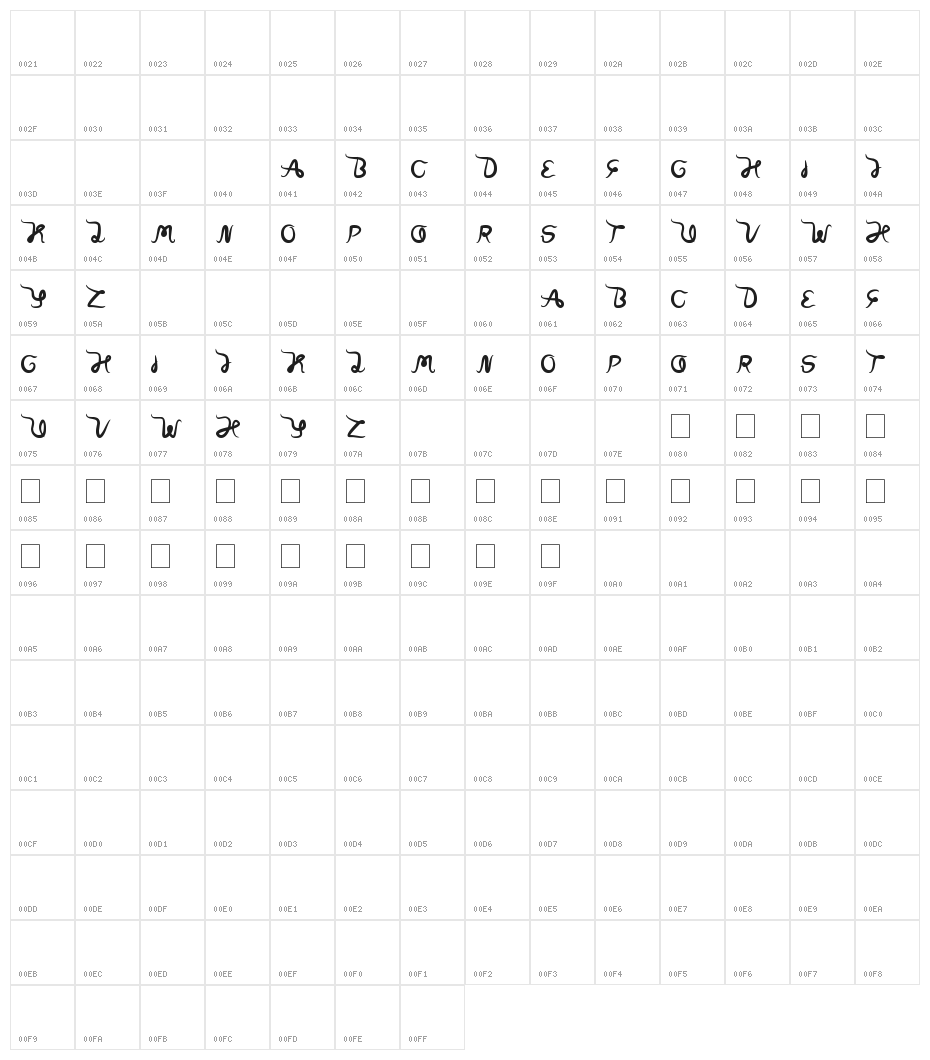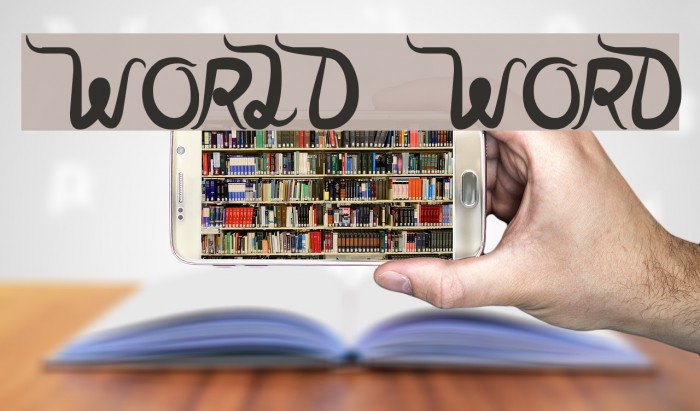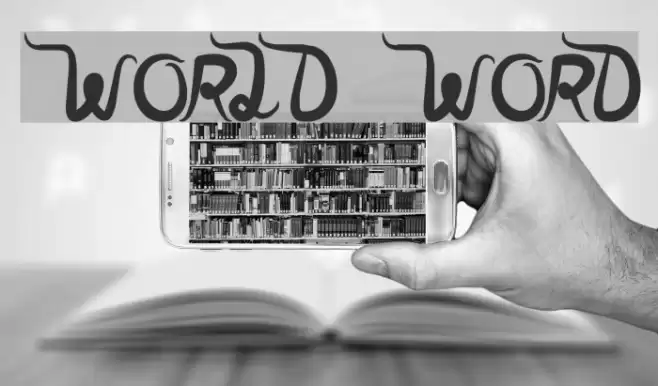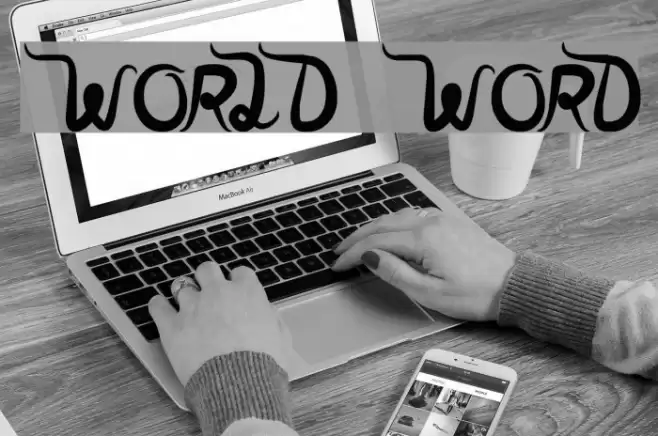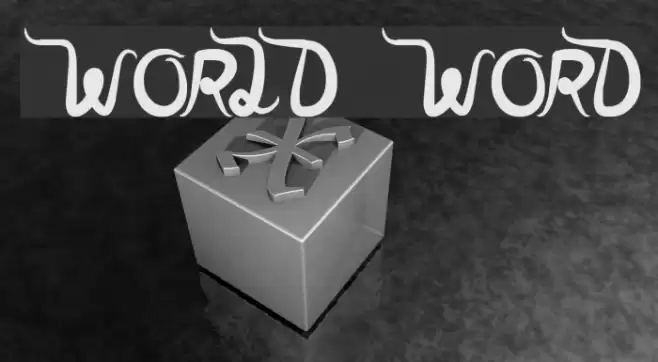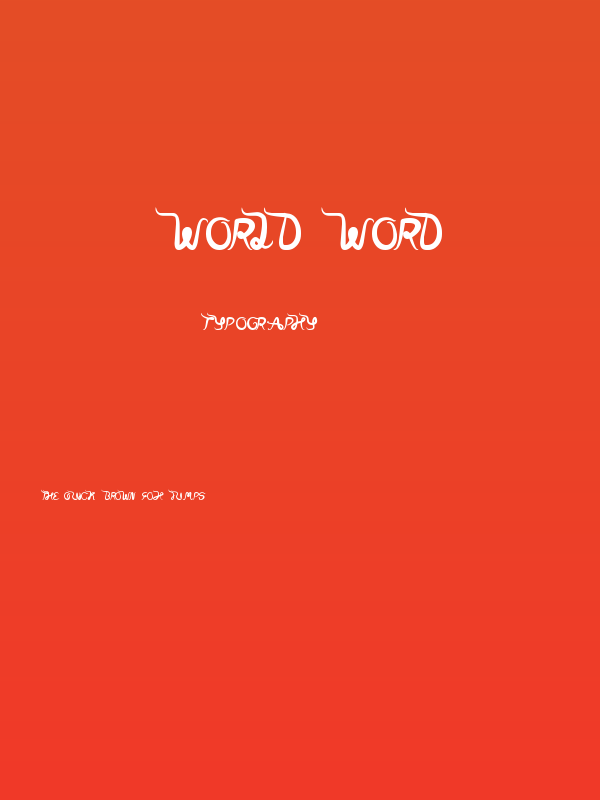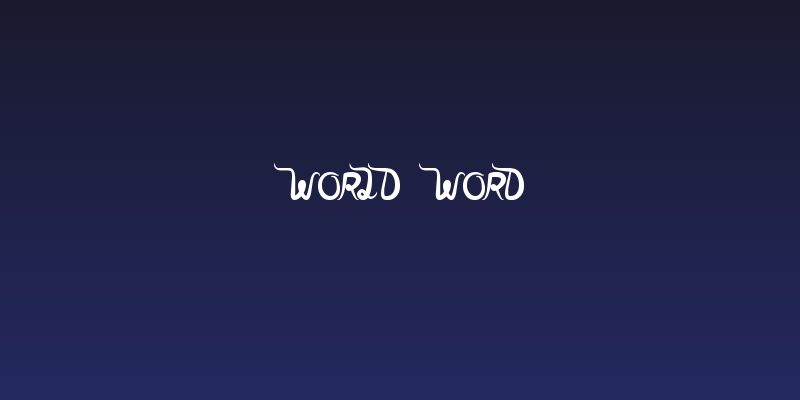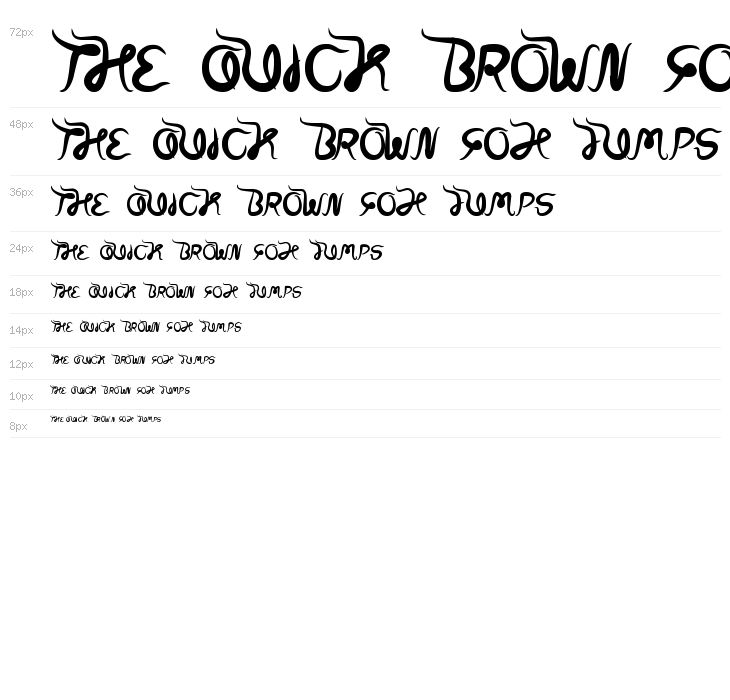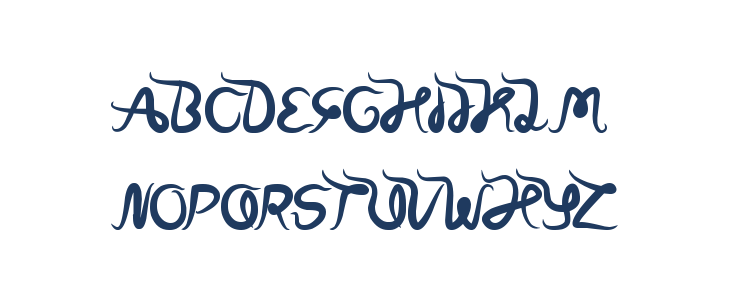
world word Font
world word Description
This font features a bold and artistic style with a unique, flowing design. Each character is crafted with intricate curves and swirls, giving it a whimsical and decorative appearance. The letters have a consistent thickness, which adds to the boldness of the font. The overall look is both playful and elegant, making it suitable for creative and artistic projects. The font's distinct style is reminiscent of calligraphy, with a modern twist that makes it stand out. Its decorative elements make it ideal for use in designs that require a touch of flair and individuality.
| Use Case | Logos, Headlines, Artistic designs |
| Proposed Projects | Ideal for invitations, posters, branding, and artistic projects that require a unique and decorative touch. |